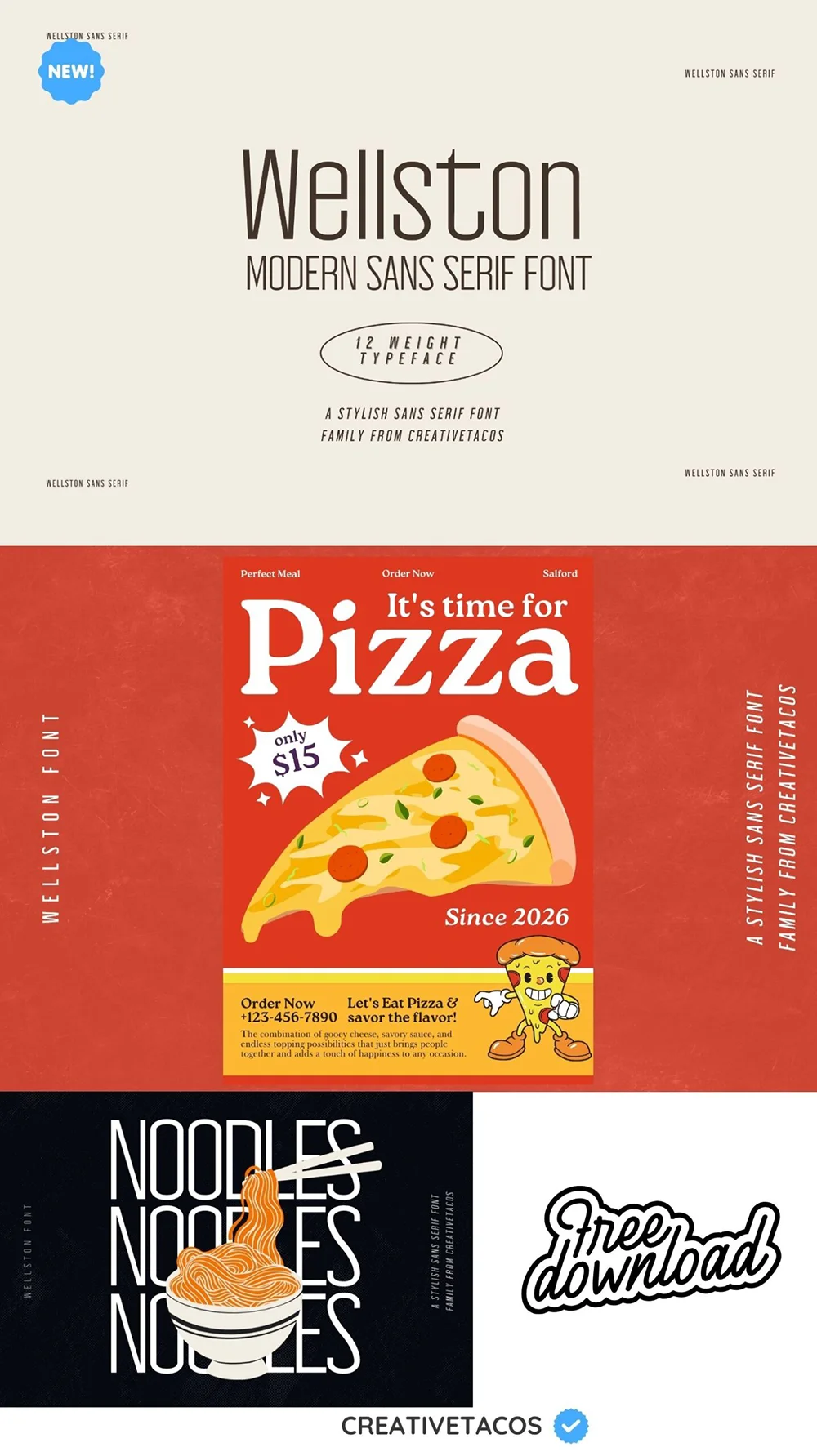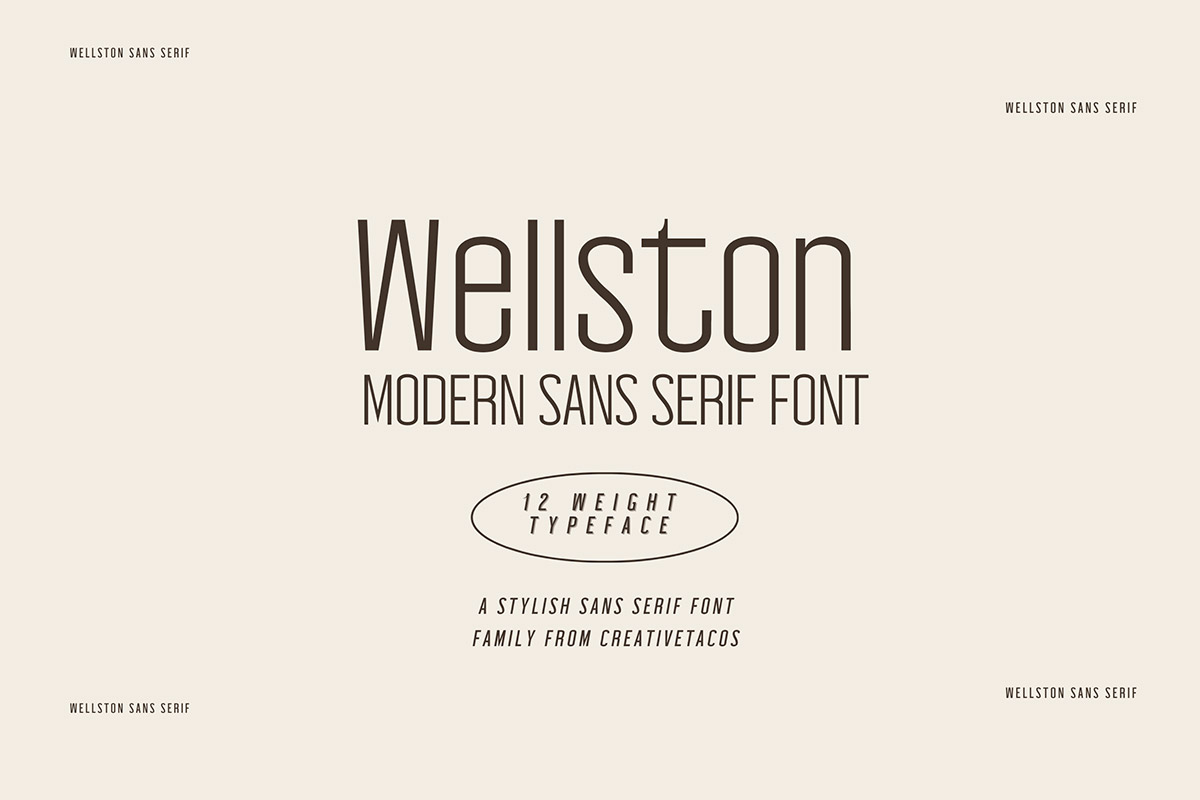
Wellston Modern Sans Serif Font
Wellston Modern Sans Serif Font is a strong and charming modern sans serif font. It includes uppercase and number characters.
It will be best for logos, headlines, posters, branding, packaging, presentations, logo, quotes, titles, magazines headings, web layouts, advertising, invitations, packaging design, books, and nearly any creative design.
With its classic serif look, the Wellston typeface will make your text stand out. Download it now and give your documents a touch of class!